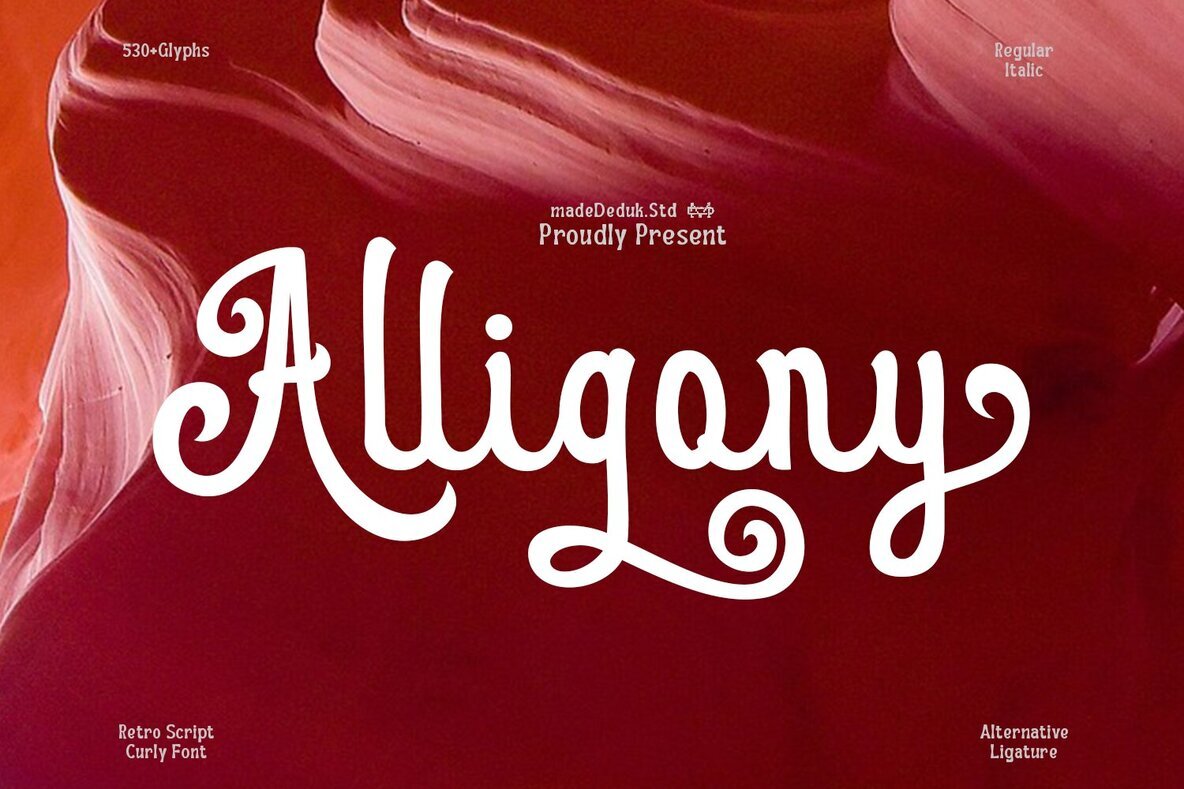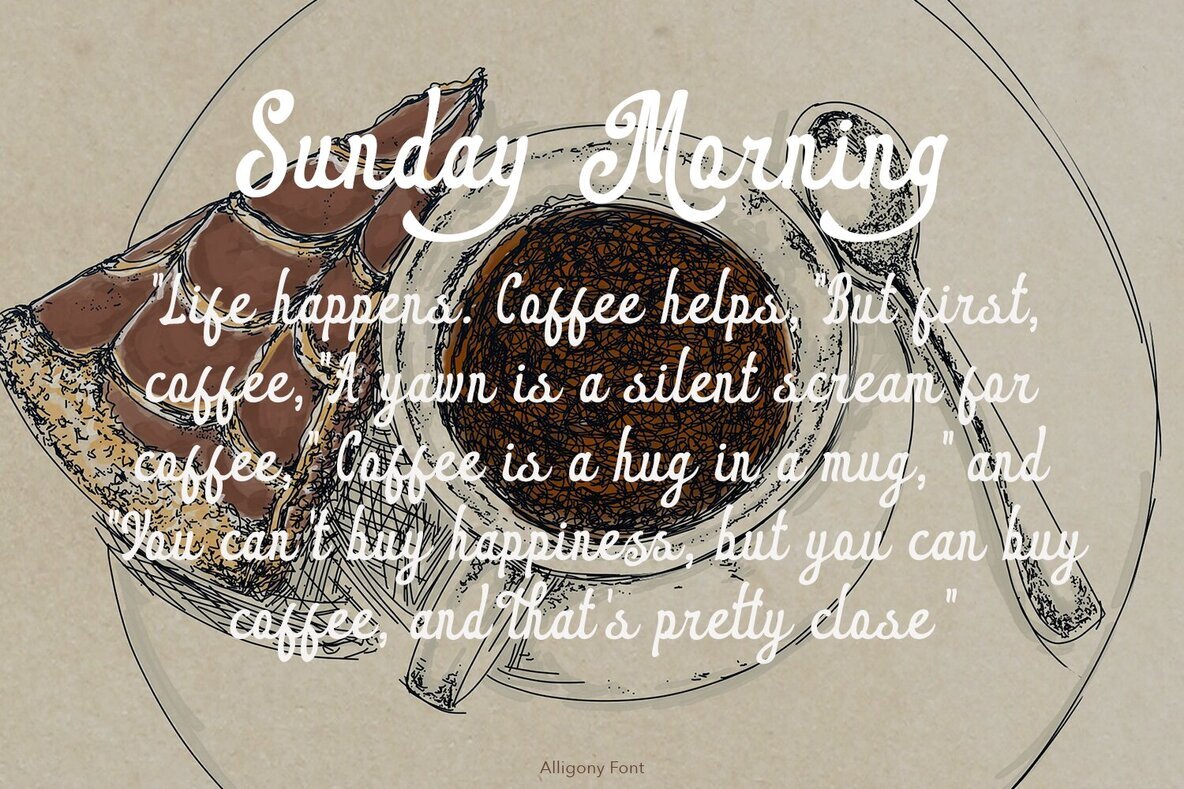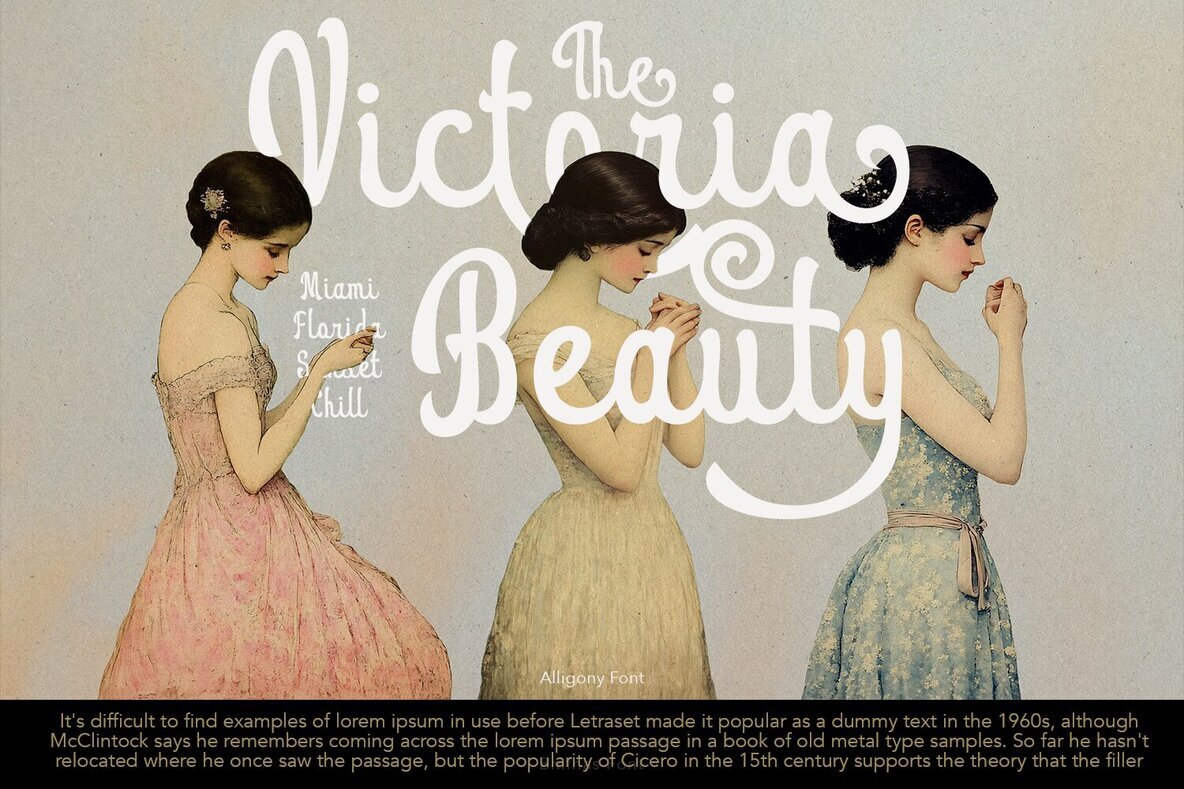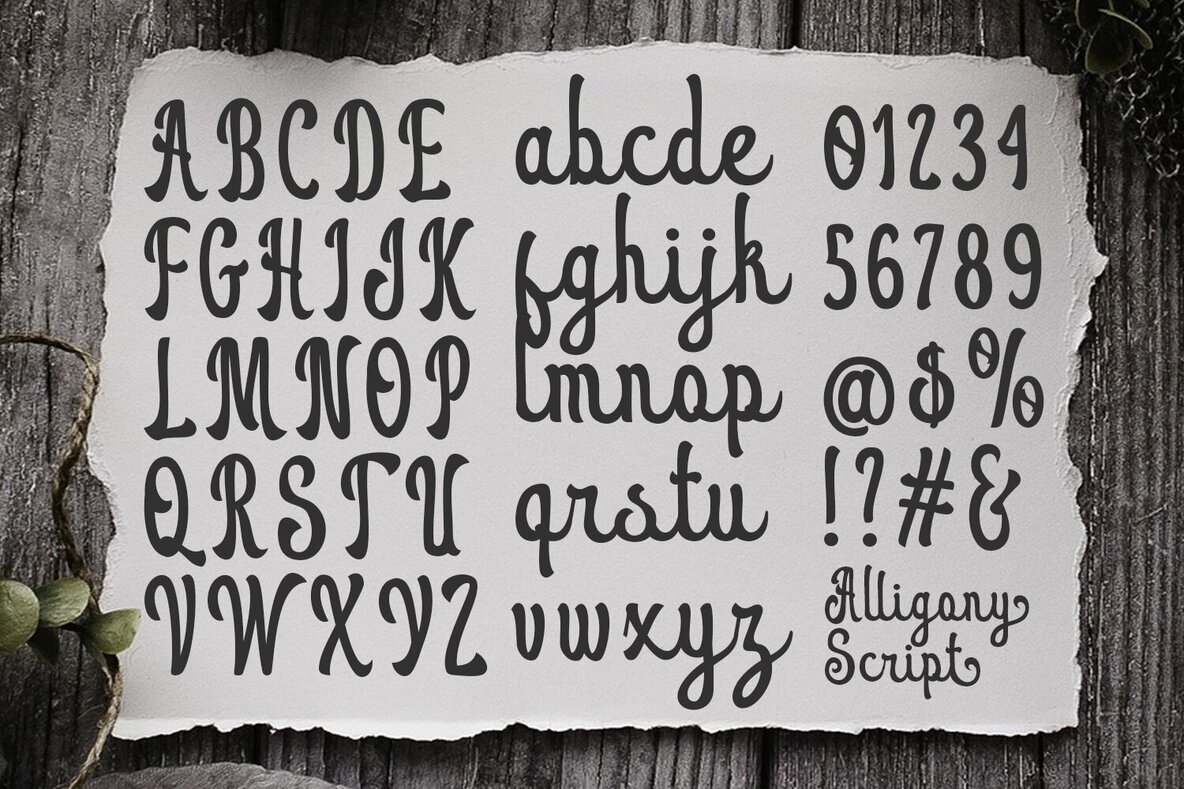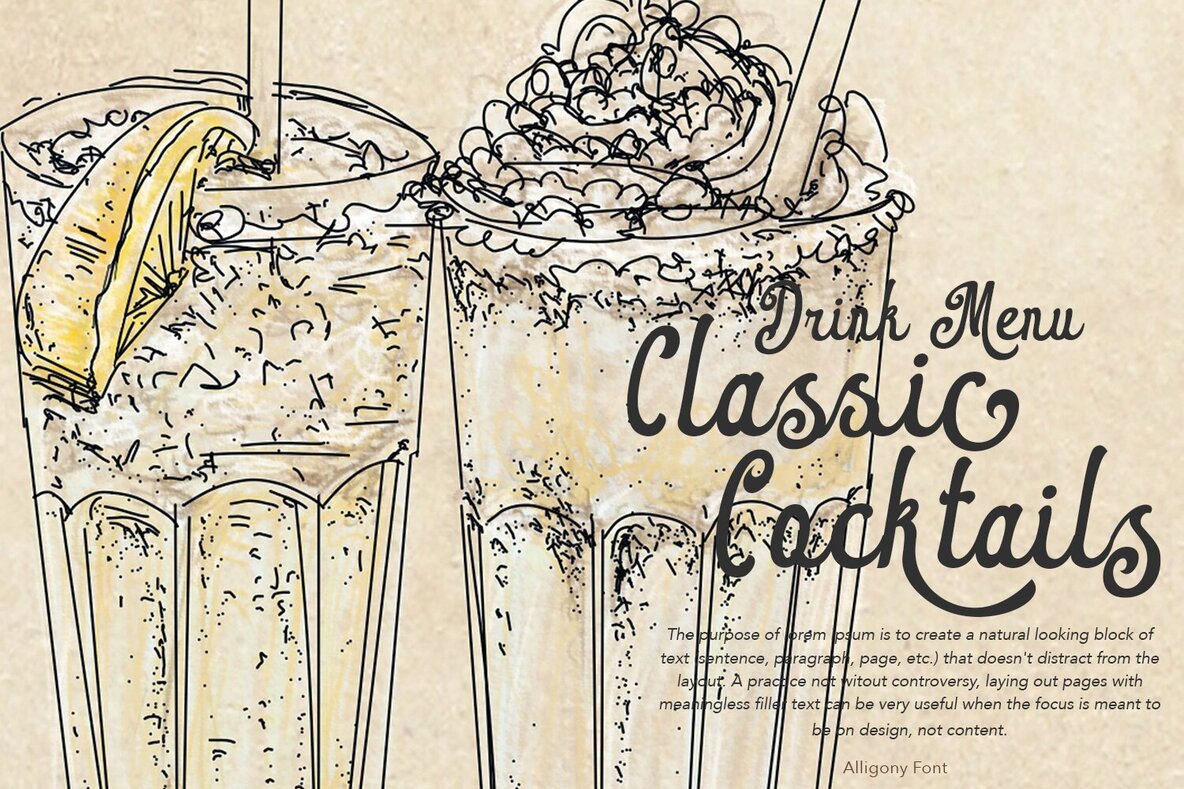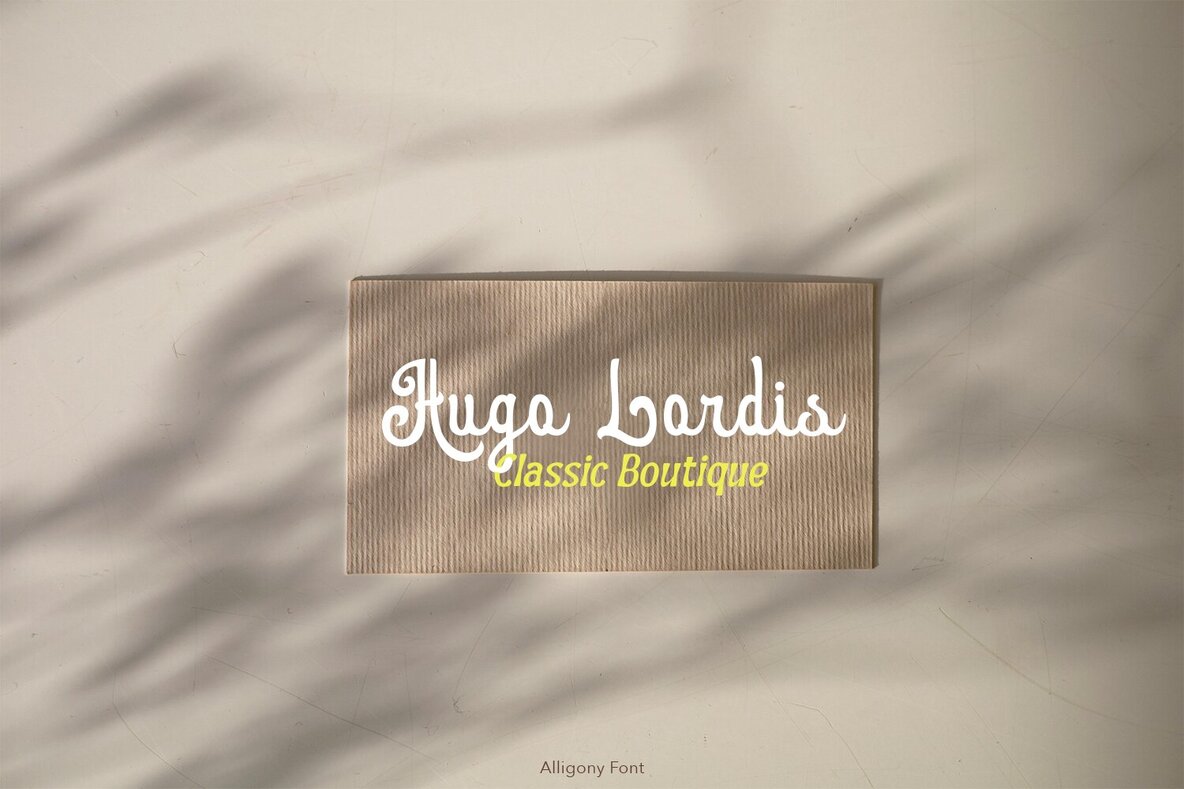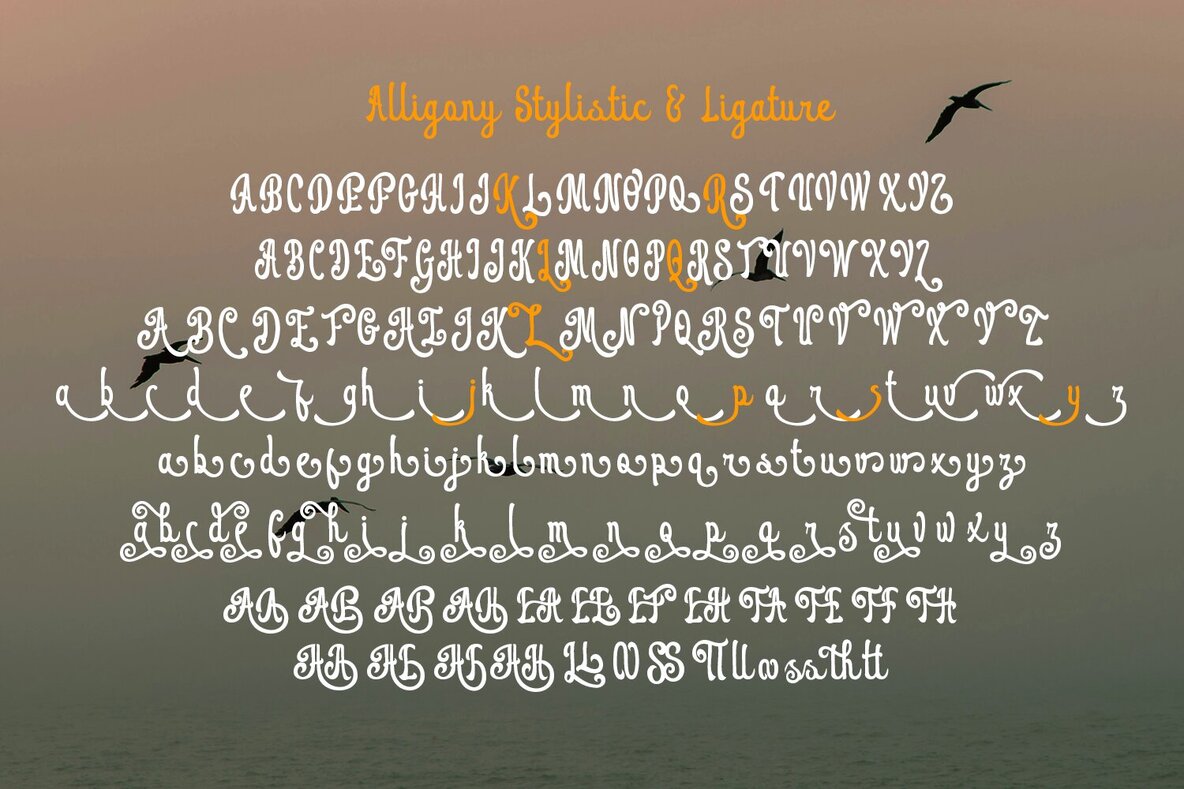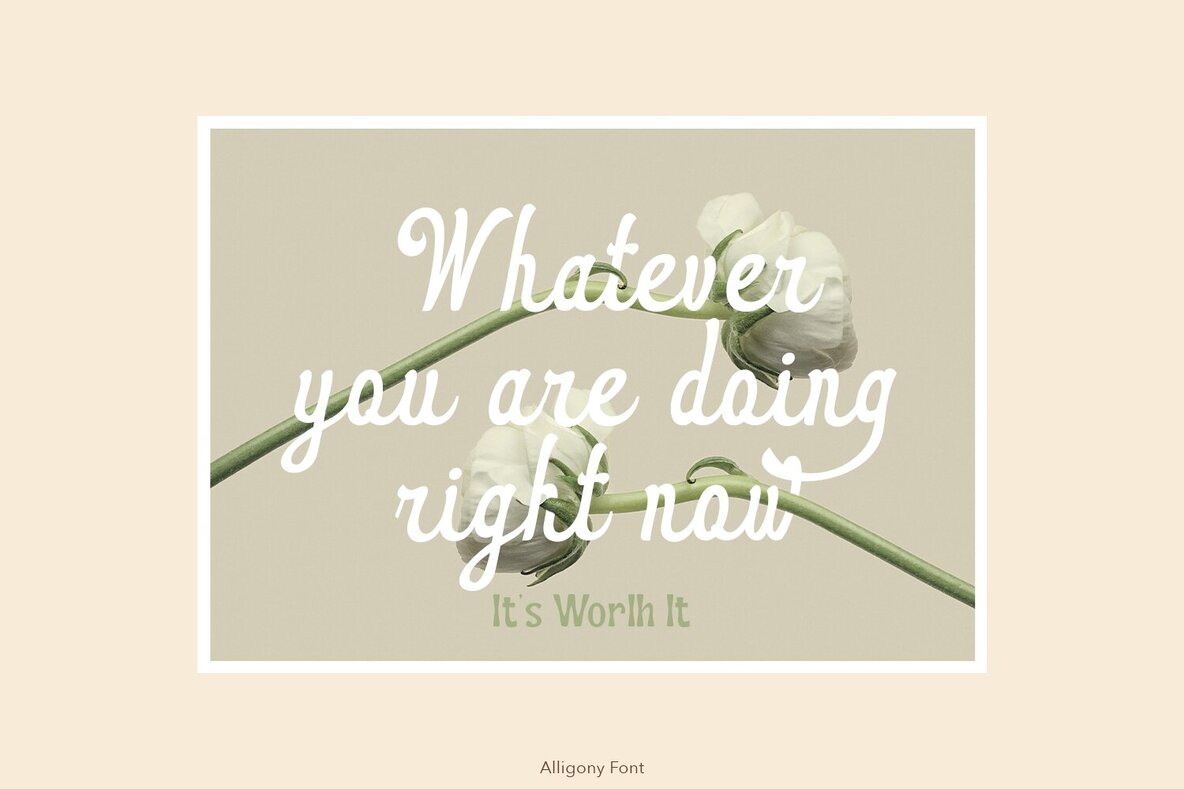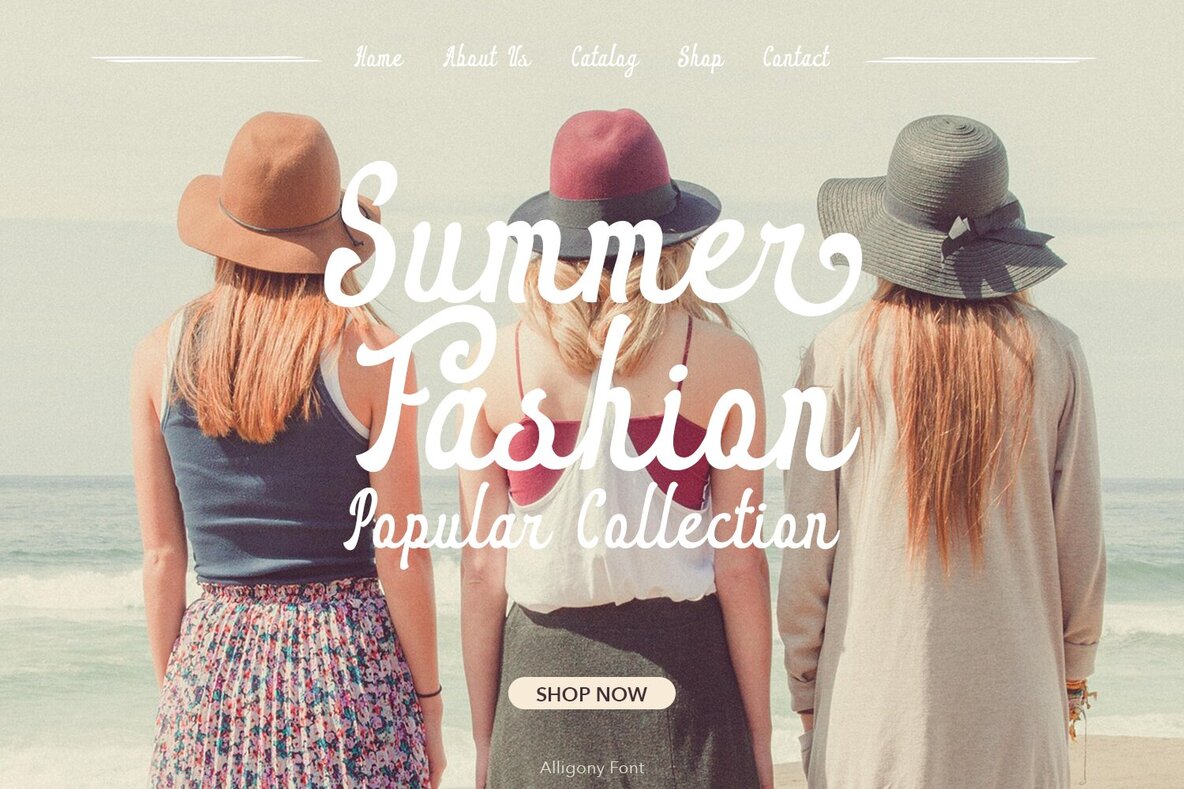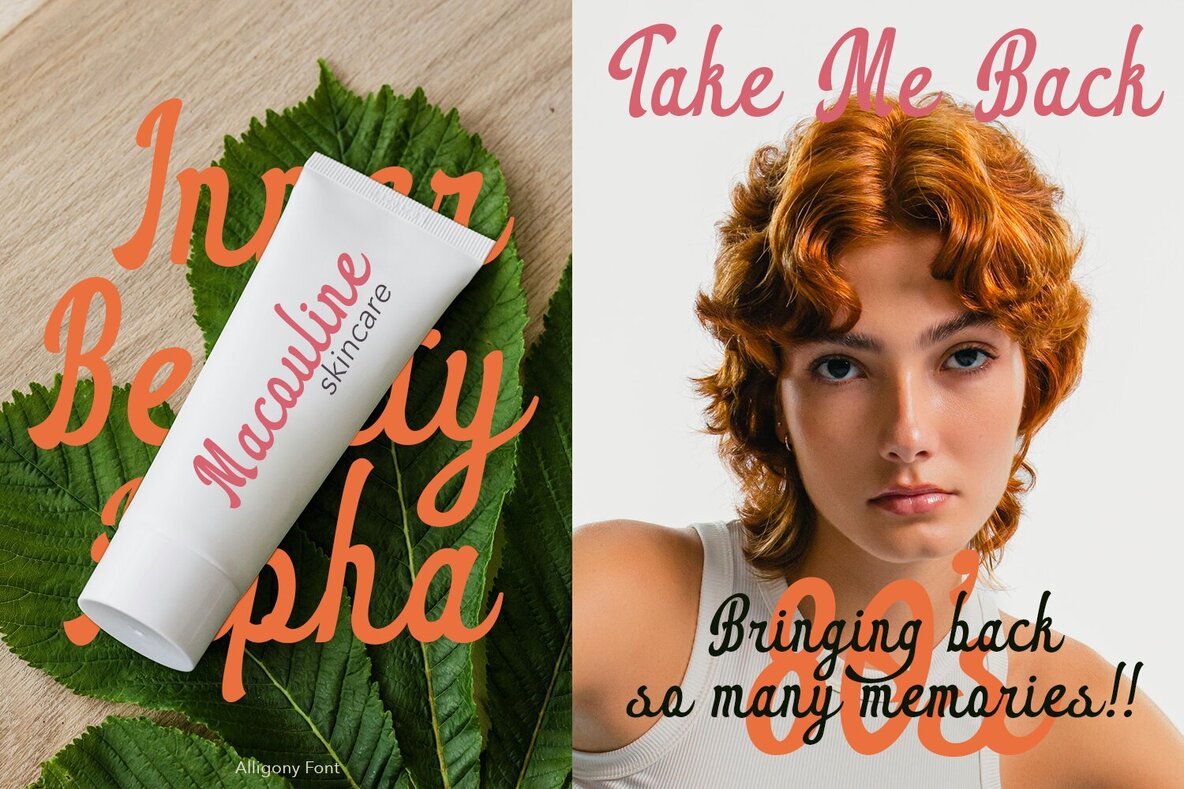
Alligony Retro Font
Alligony Retro brings classic charm to modern design projects with its refined, elegant script style. Distinctive and eye-catching, this font stands out for titles or visual elements that demand attention. The flowing curls and well-crafted alternatives offer a rich palette for unique typographic solutions. Designed to fit both contemporary and vintage projects, Alligony Retro adapts seamlessly across a range of creative applications. Its versatile letterforms make it ideal for projects that benefit from a touch of nostalgia and sophistication.Alligony Retro Script Font